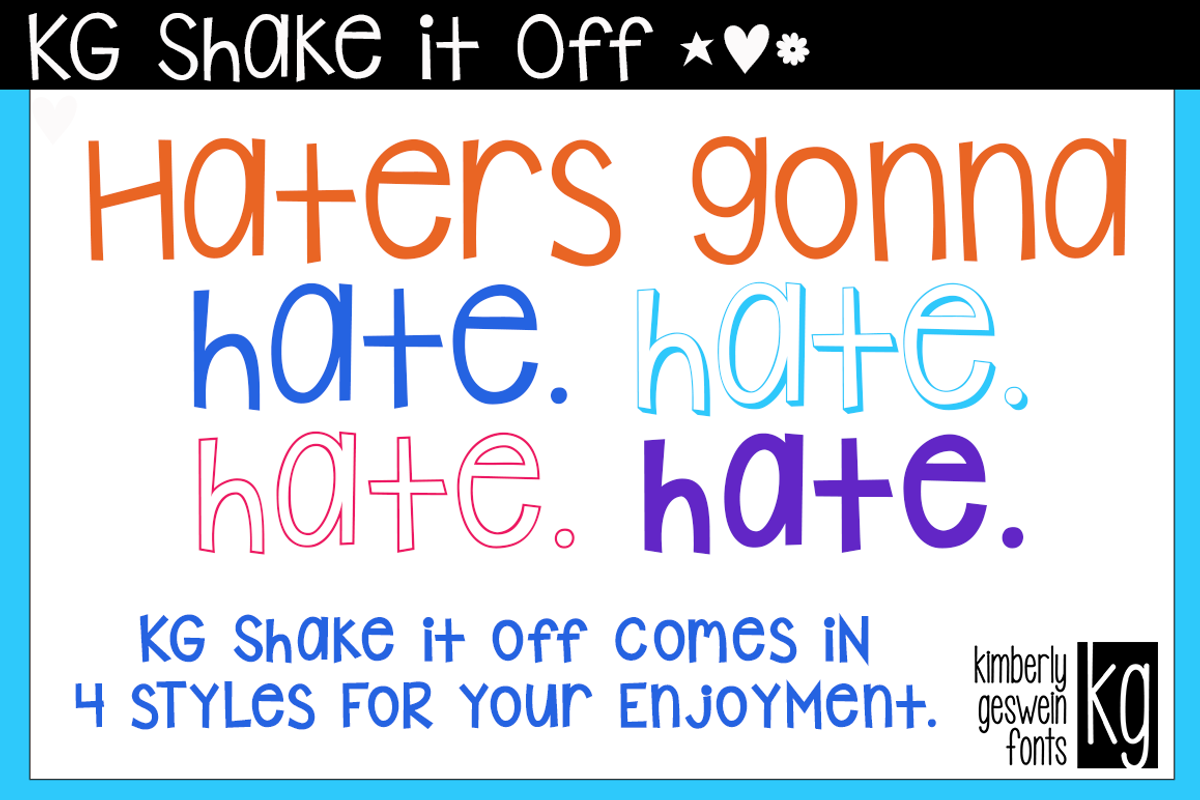
KG Shake it Off Fonts
KG Shake it Off Fonts by Kimberly Geswein Fonts is a font selected for branding, posters, packaging, typography.
- KG Shake it Off Regular
- KG Shake it Off Outline Regular
- KG Shake it Off Chunky Regular
- KG Shake it Off Popped Regular
KG Shake it Off Fonts by Kimberly Geswein Fonts fits naturally into Branding, posters, packaging, typography.